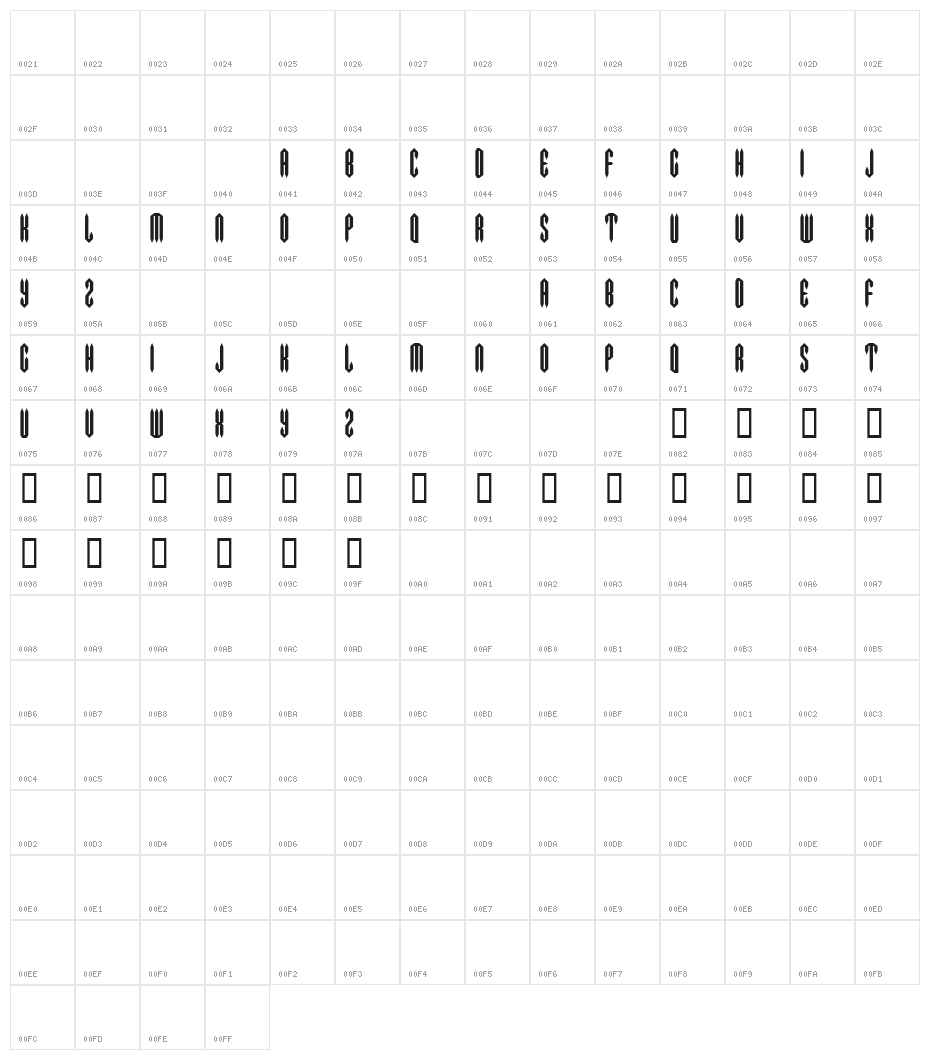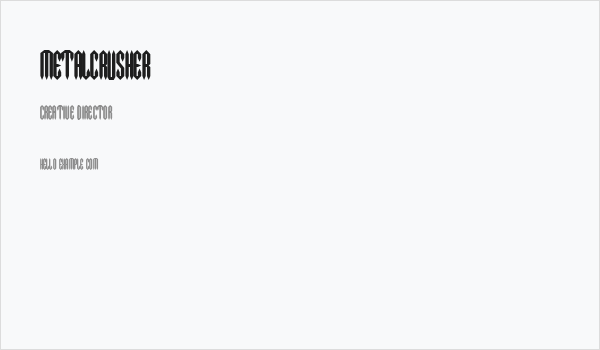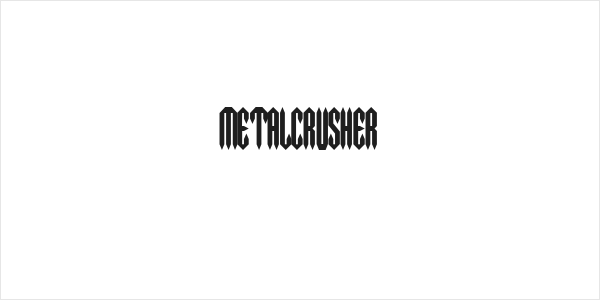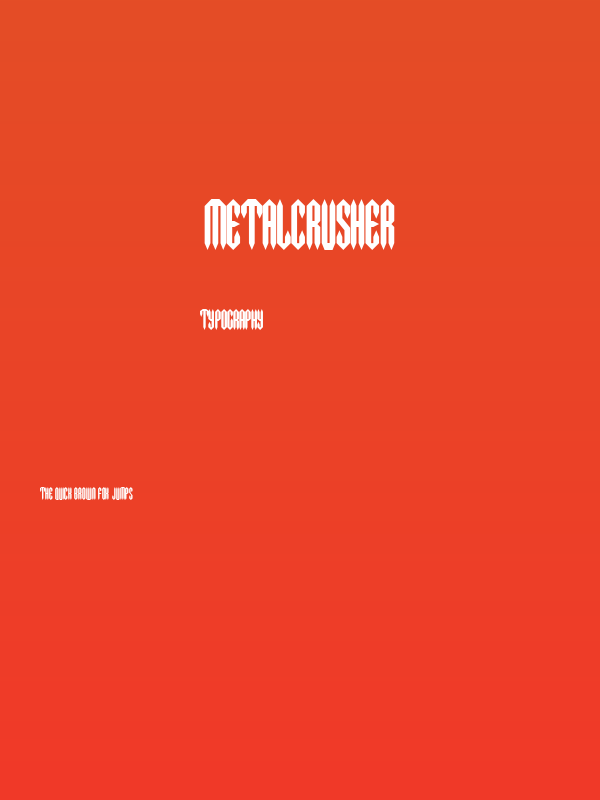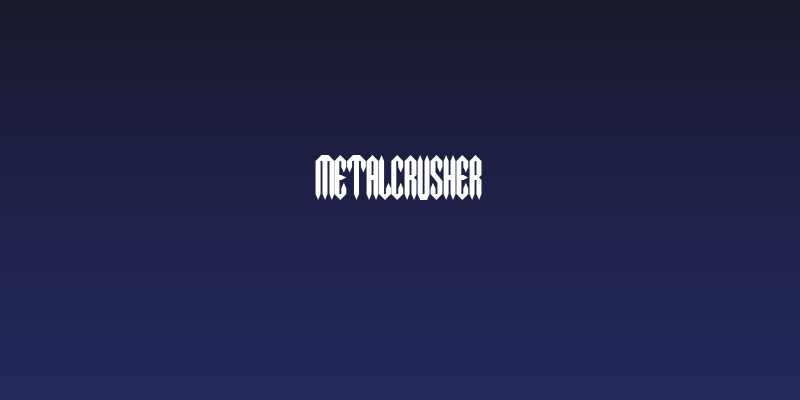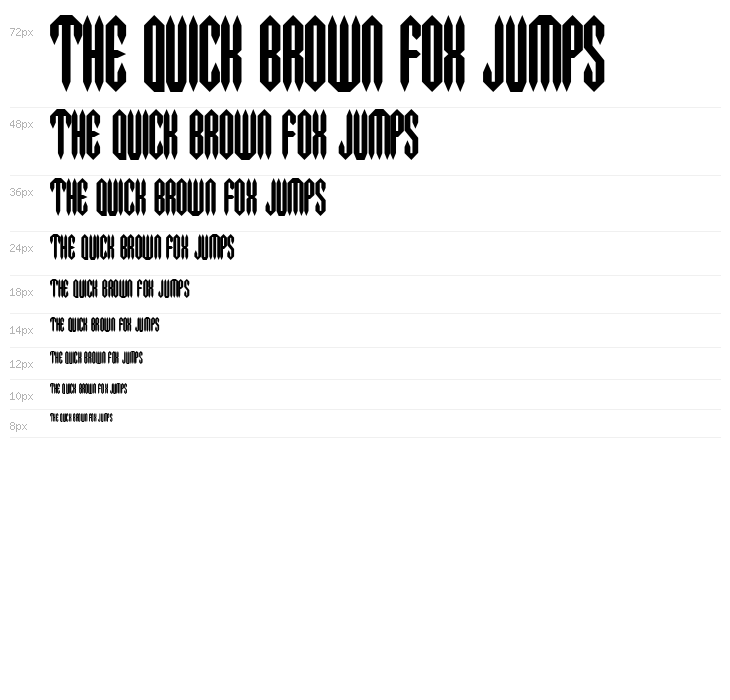
MetalCrusher Font
MetalCrusher Description
This font features a bold and striking design, characterized by its sharp, angular edges and heavy weight. The uppercase letters are tall and imposing, with a distinct geometric style that gives them a modern and edgy appearance. The characters are tightly spaced, enhancing the compact and powerful look. The font's high contrast in stroke thickness adds to its dramatic and impactful presence, making it ideal for attention-grabbing headlines or logos. Its unique style is reminiscent of industrial or futuristic themes, suitable for projects that require a strong visual statement.
| Proposed Projects | Ideal for music album covers, video game titles, posters, and branding that requires a strong, modern aesthetic. |